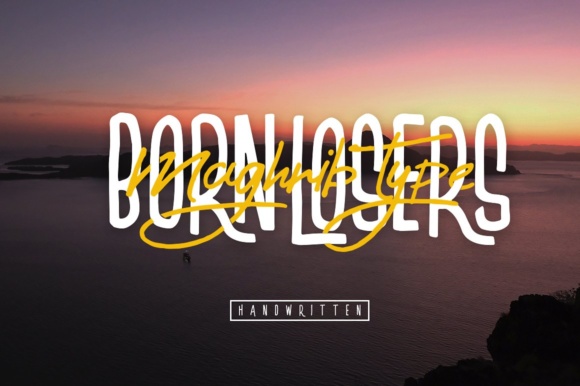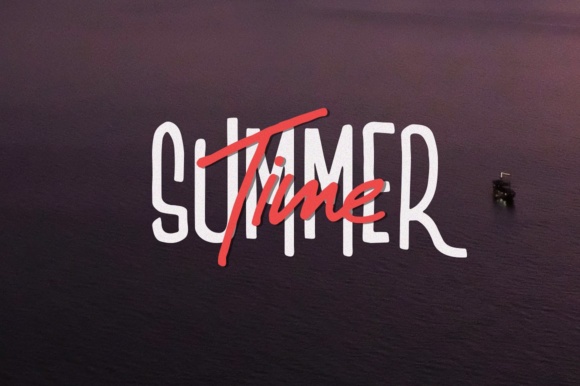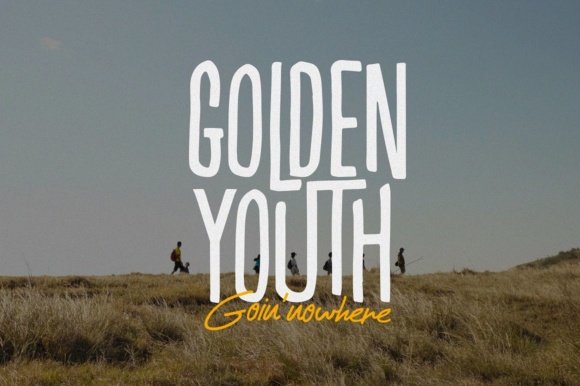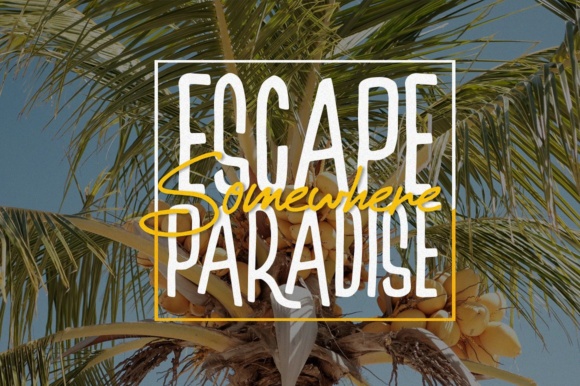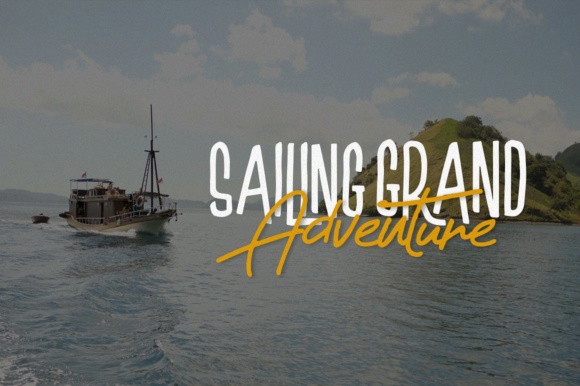
Born Losers Font
About Born Losers Font
The Born Losers is a beautiful font duo. It was designed to help you create the look of a stunning handwriting. It comes in a regular and sans version which makes it an unique typeface for all your designs.